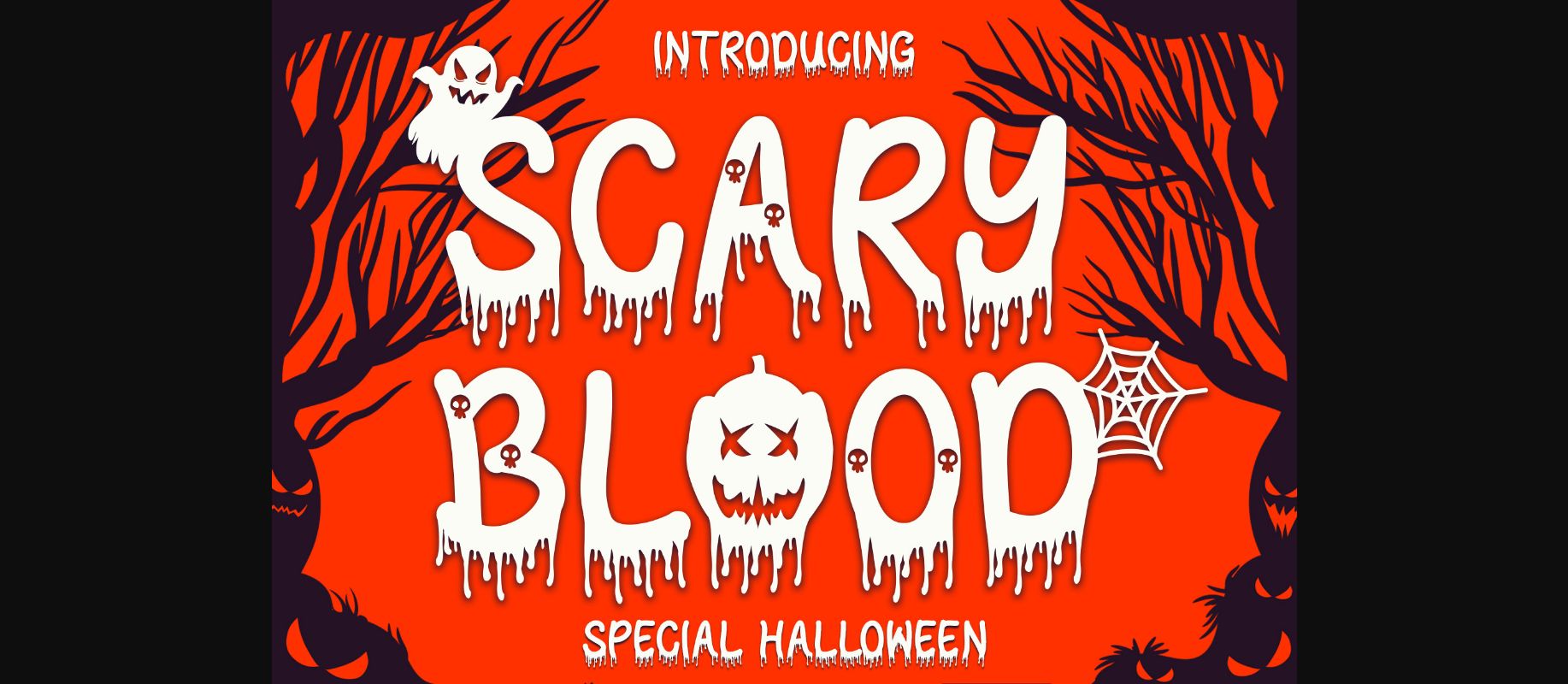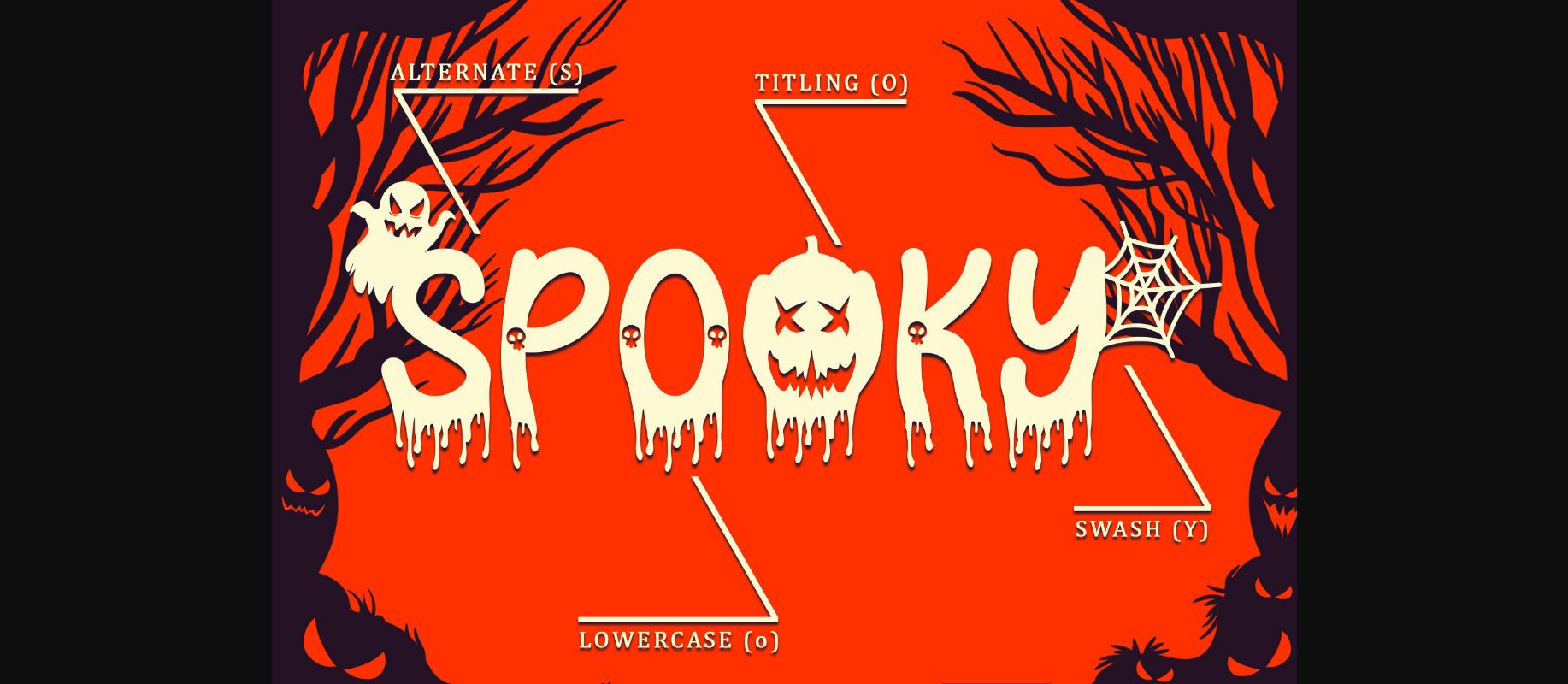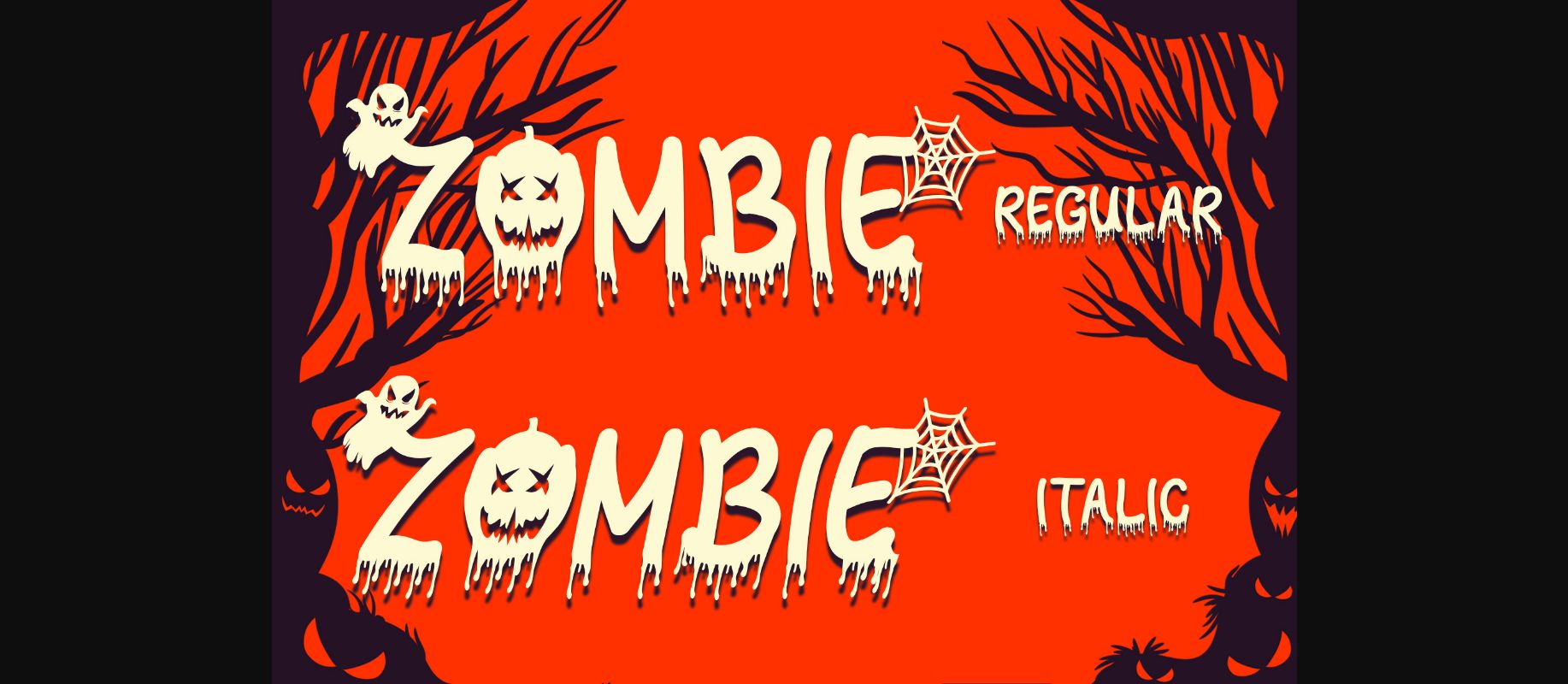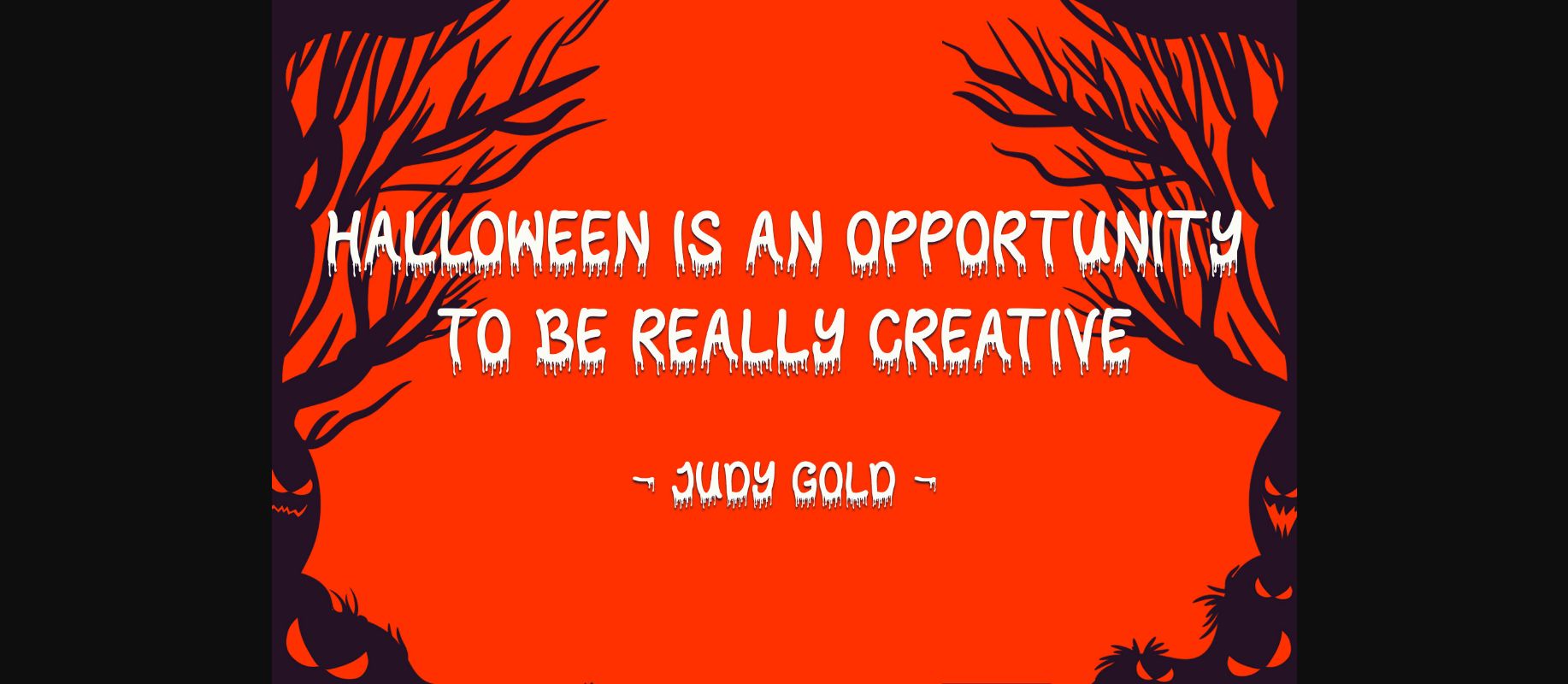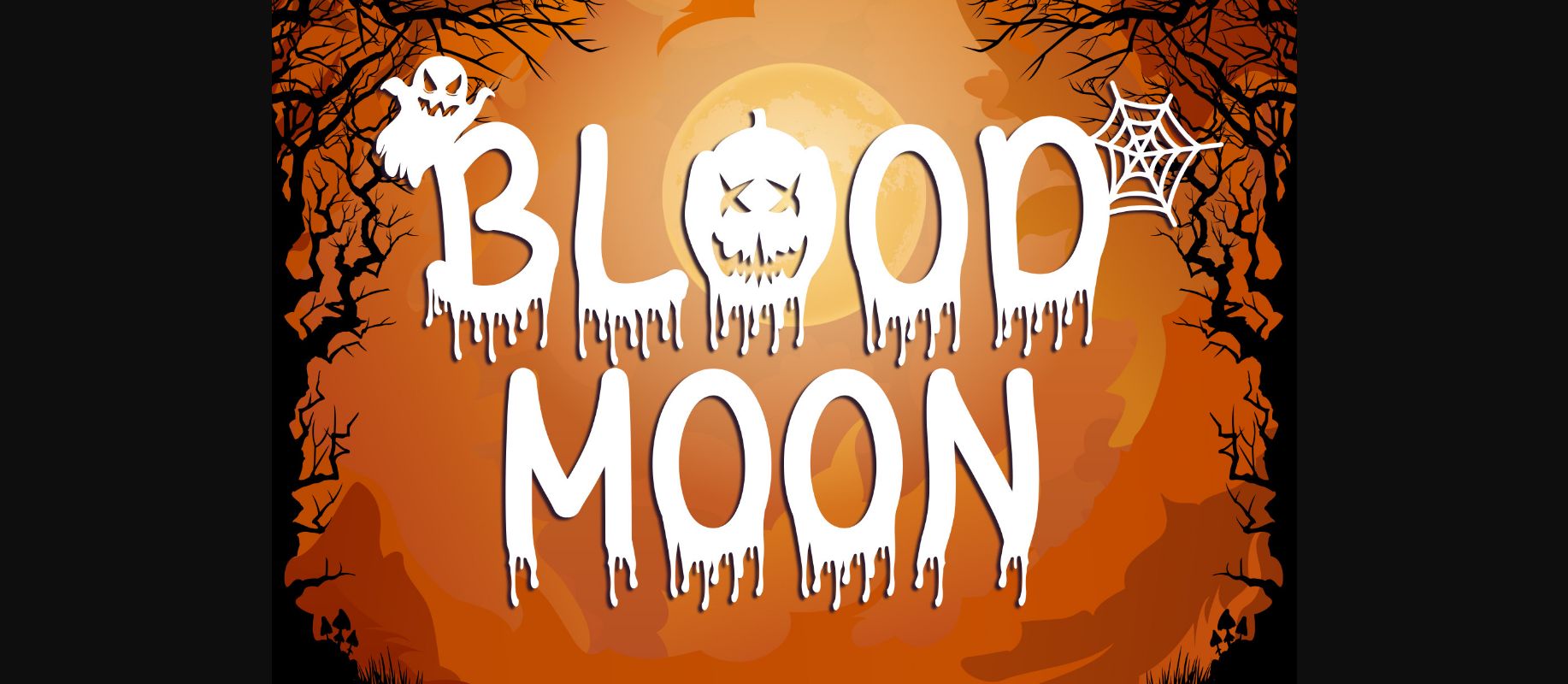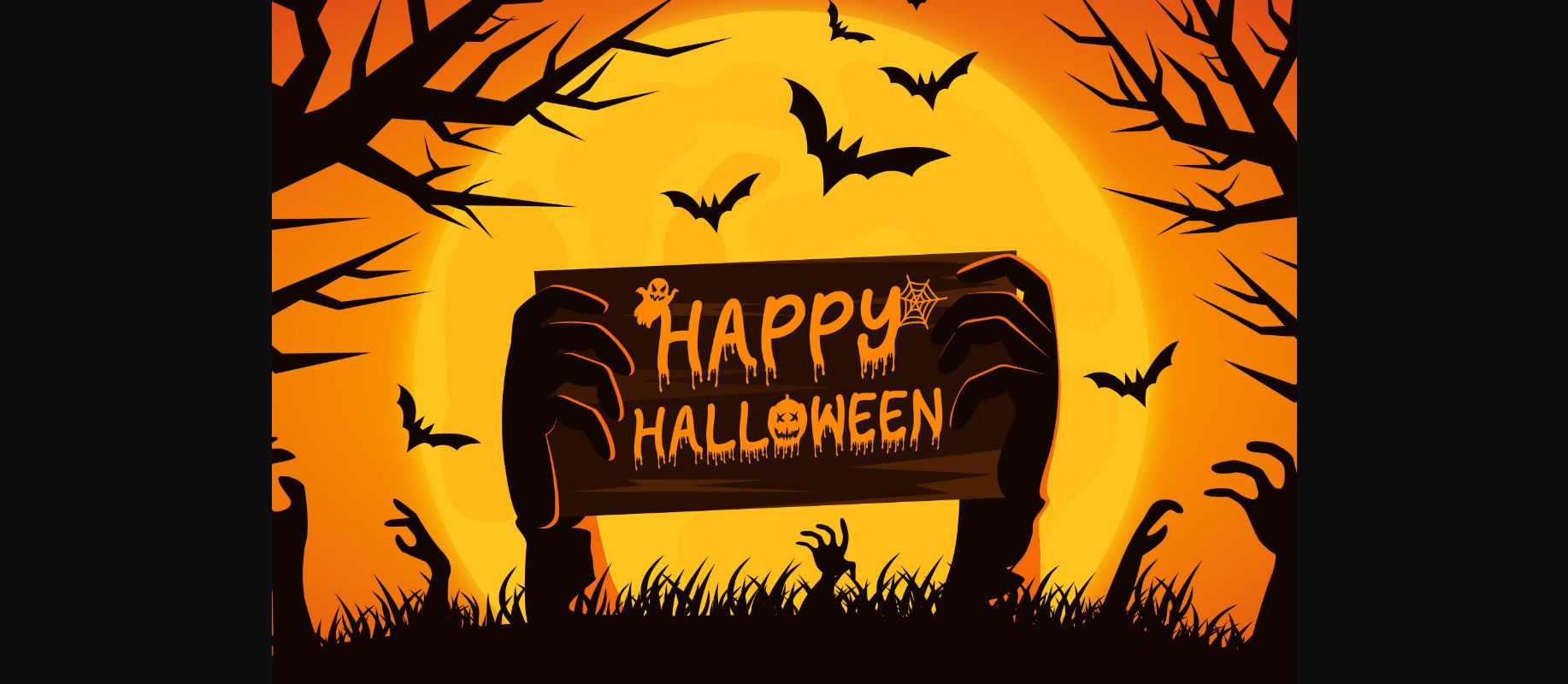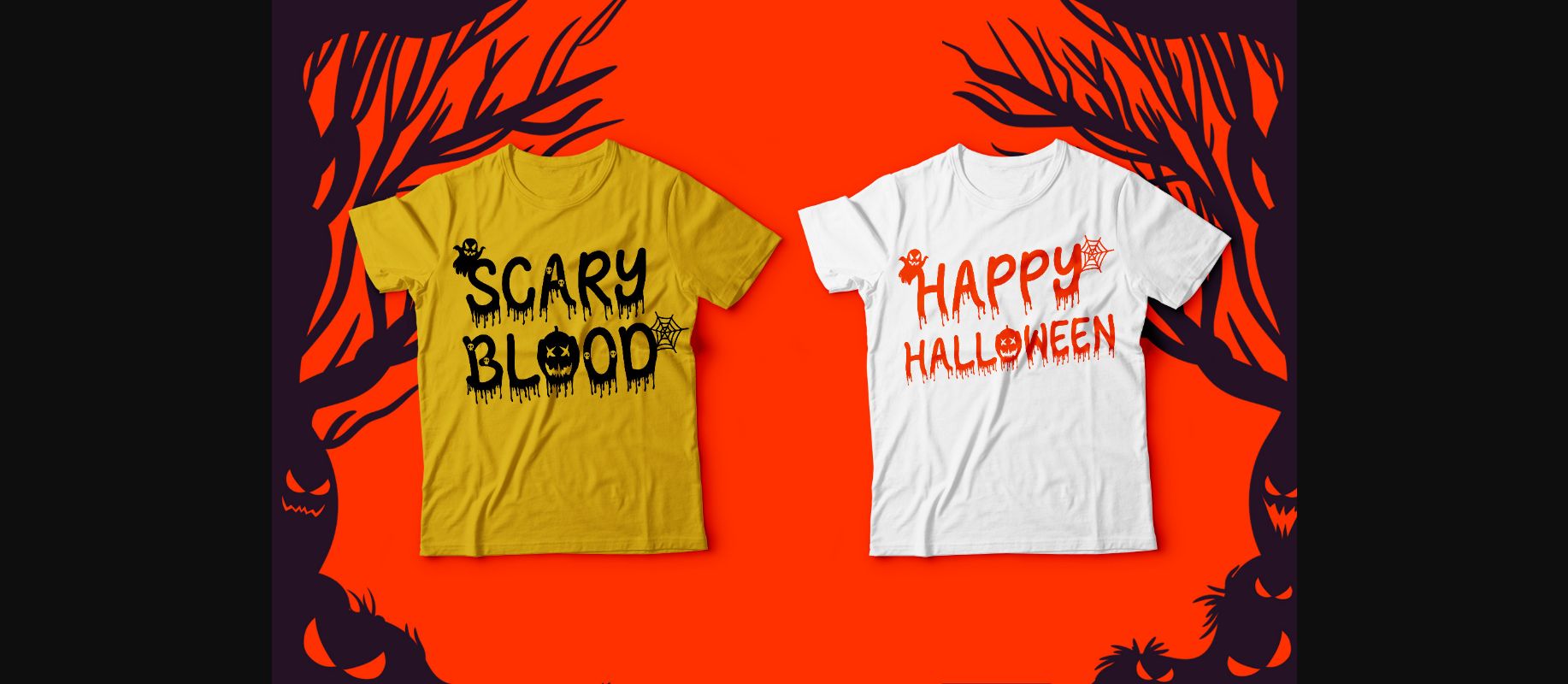
About Scary Blood Font
Scary Blood is a spooky and assertive decorative font. No matter the topic, this font will be an incredibly asset to your fonts’ library, as it has the potential to elevate any creation. Scary Blood is PUA encoded which means you can access all of the glyphs and swashes with ease!